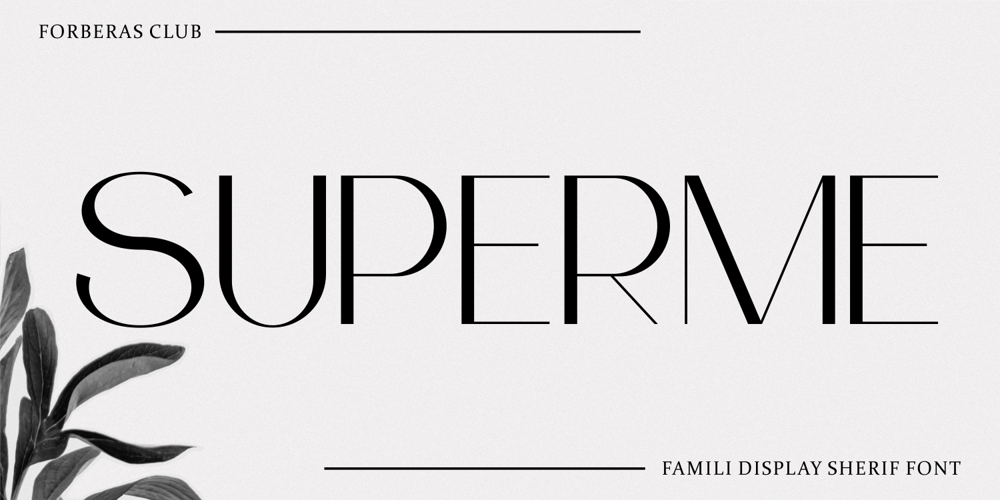
Superme Font Family was designed by ANGGI HERMAWAN and published by Forberas Club. Superme contains 2 styles and family package options. Superme, This is the new serif in town i mean in my font family. It’s super ready for any crafter, event planner, or thirsty idea seeker for making your project or crafting material. It will smooth your presentation font, or your novel book font, and making any invitation card, greeting card, gift, decorative font, or your branding image.